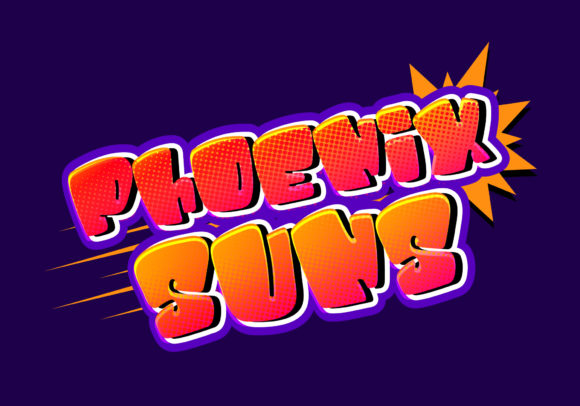
Exclamation Font
Exclamation is a graffiti styled, chunky lettered display font. Add this playful font to each of your creative ideas and notice how it makes them stand out!